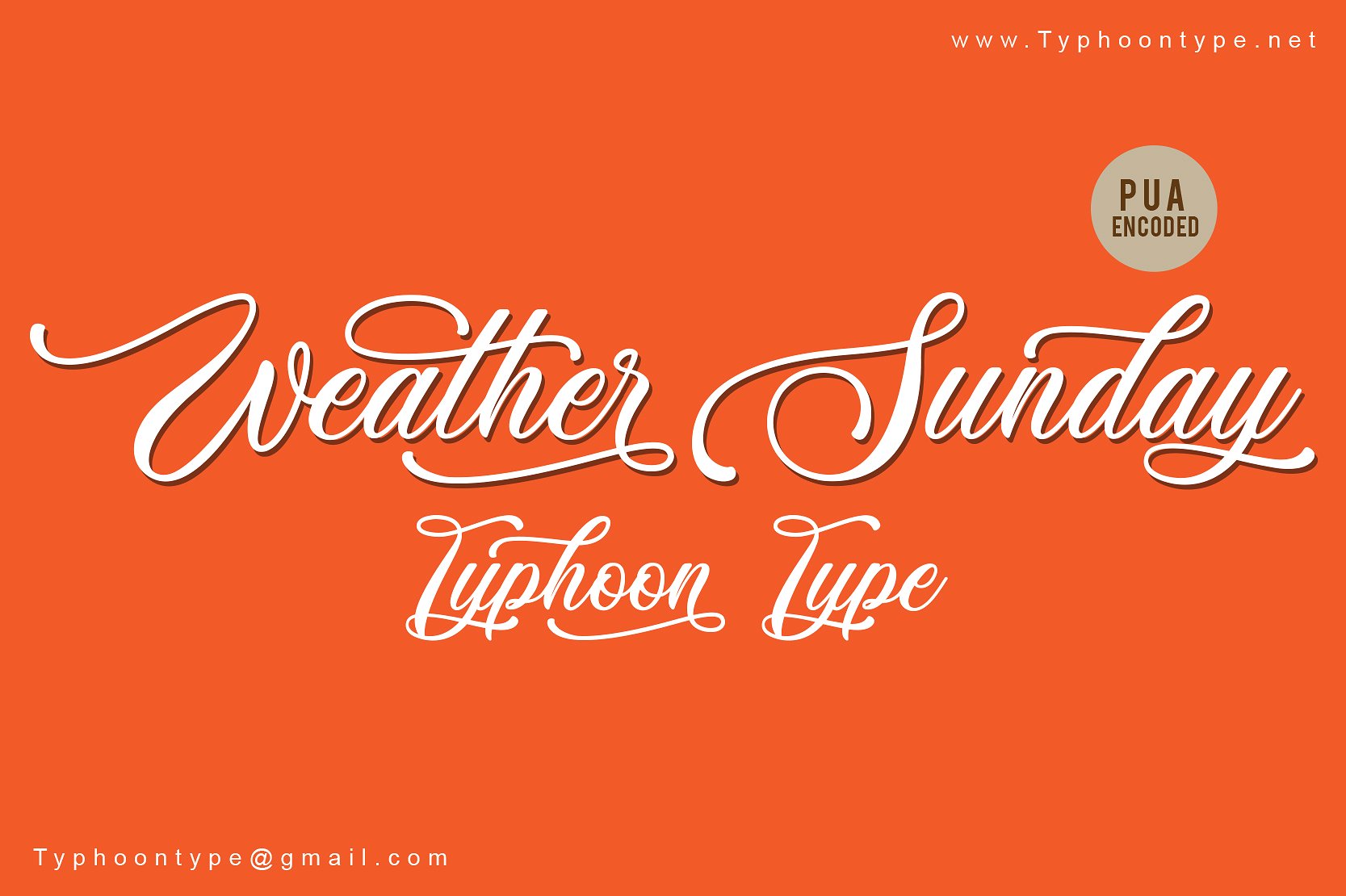
Weather Sunday Script Font
Introducing Weather Sunday Font! Weather Sunday is a modern script typeface. It has a striking, yet elegant look which can be used to make your design stand out. Weather Sunday This font perfect for logos, name tag, advertising, product packaging, clothing, social media & greeting cards.